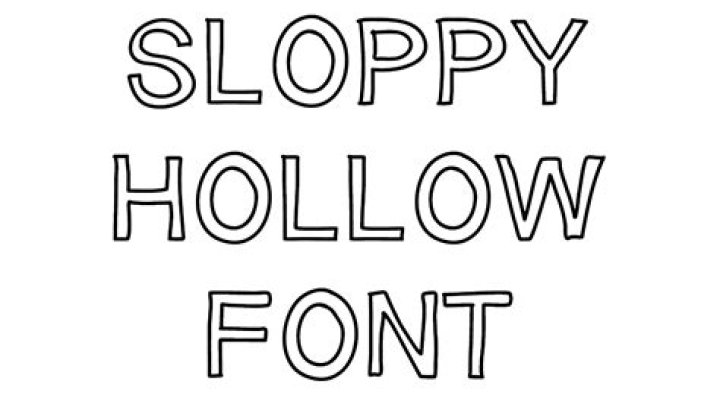
Andrew Davis Hollow font
What does it mean when a letter is empty in a hollow font?
The police are excavating. Empty fonts have empty letters, which means they are incomplete.
FontZone is another good website that allows you to download free fonts. It offers free fonts that you can use for whatever you want: websites, documents, images, etc.
What is the best website for free fonts?
1. DaFont. DaFont is probably the most popular free font site in the world. There's a good reason for that too: this site is user-friendly. You can use the search function or find the font you want by browsing through the different categories available.
Are there any free hollow fonts to download for cricut
Cricut offers a set of design space fonts that can be written as single-line fonts. This means that instead of drawing the outline of the letters, Cricut Design Space draws each letter on one line as if it were handwritten. The problem is that these fonts are only available to Cricut Access subscribers.
What are the best font styles?
6 popular fonts (+ best free fonts for everyone) SansSerif fonts. SansSerif fonts are fonts with a distinctive character design. Script and handwritten fonts. These are swirling lines and curved fonts. Vintage and retro font.
What is the best font for sports?
Creative Alpha Sports Font. Different sports fonts apply to different sports. Overall, the Octin series is ideal for almost all sports. Cowboy is best suited for rugby, baseball and college football.